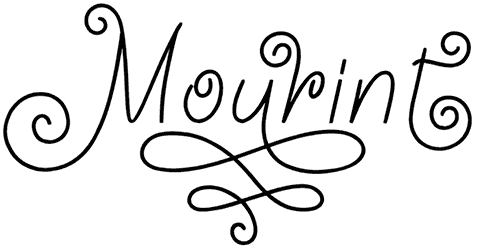
Mourint Font
If you are looking for an artistic font with unique decorations that will make you stand out, Mourint is our website’s best suggestion. This curly font has letters that remind the viewer of lollipops and create a childish feeling in the space.
Also, this whimsical font can be one of the most popular choices for designing food, toys, and clothing packaging, turning them into a magical project to dramatically increase sales.